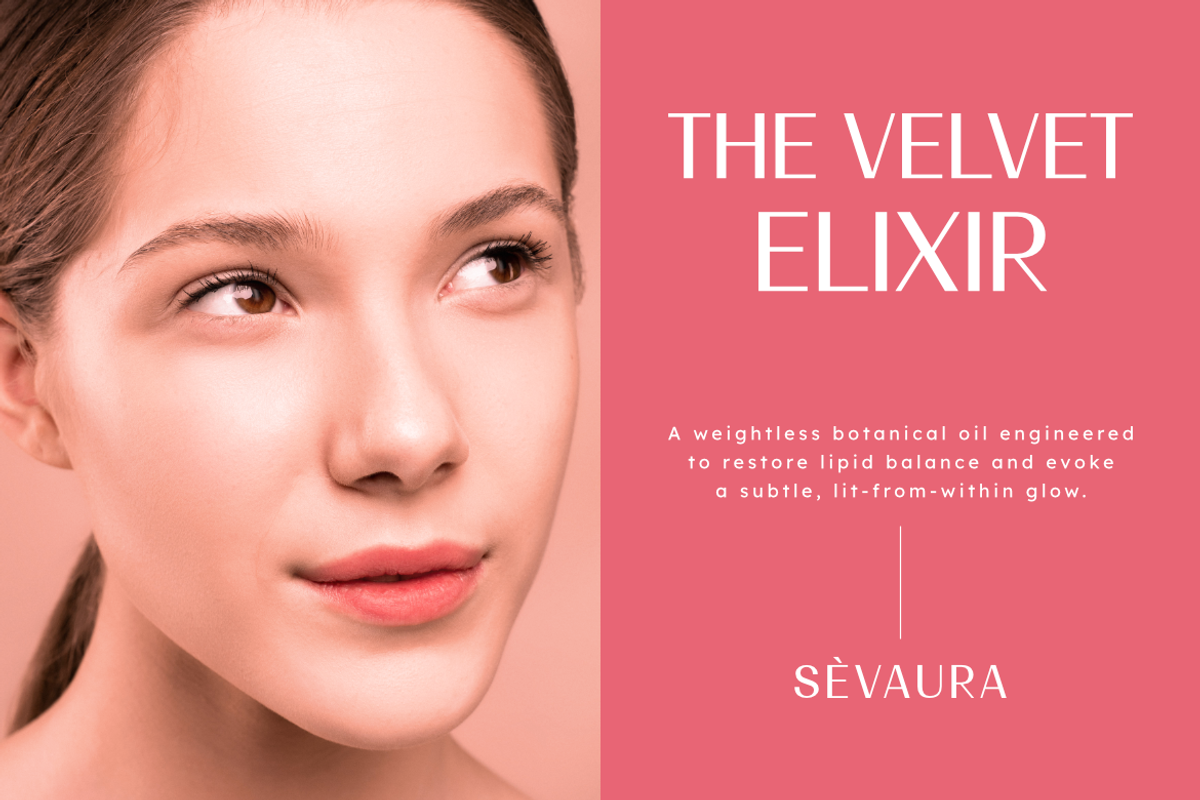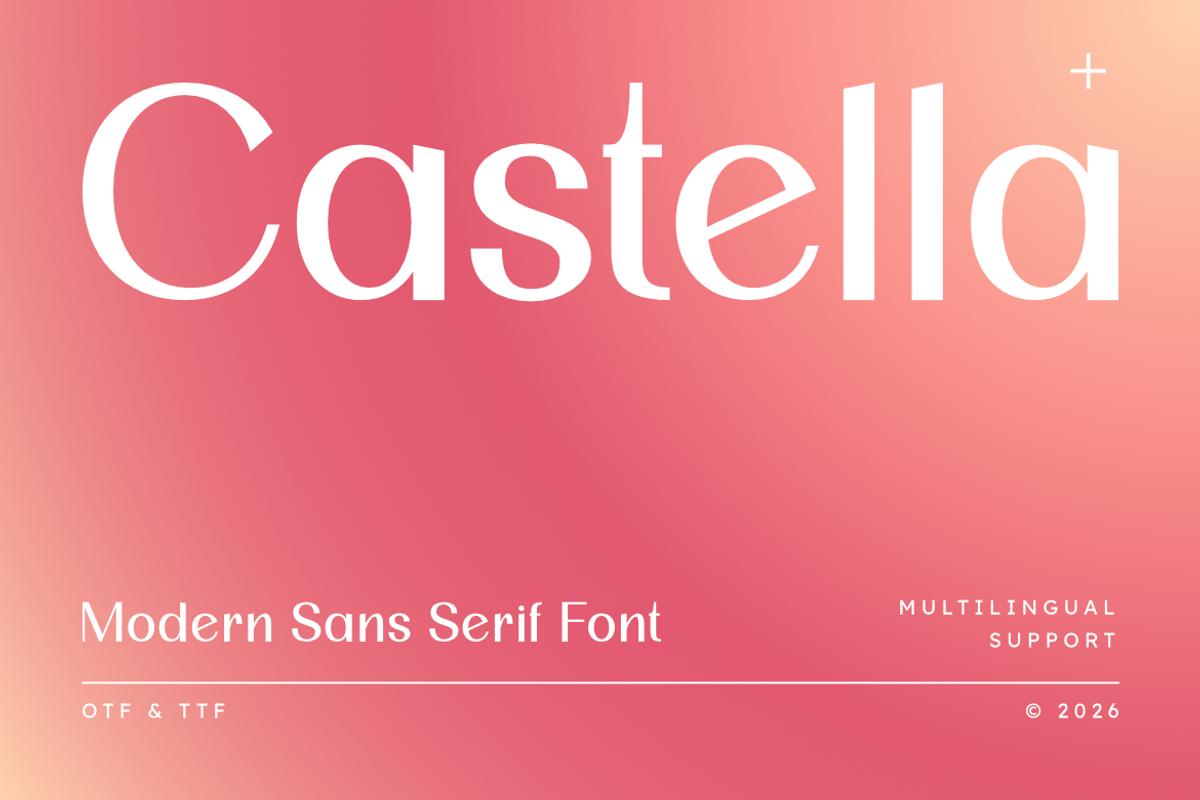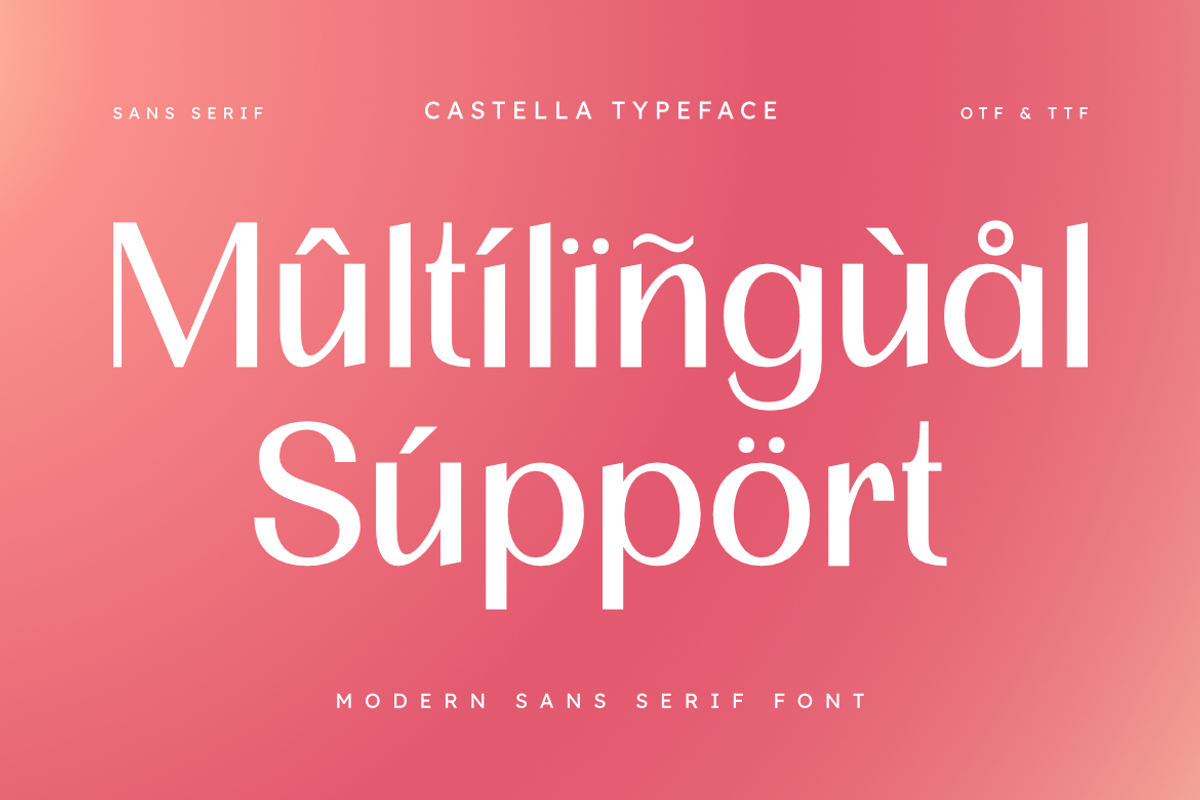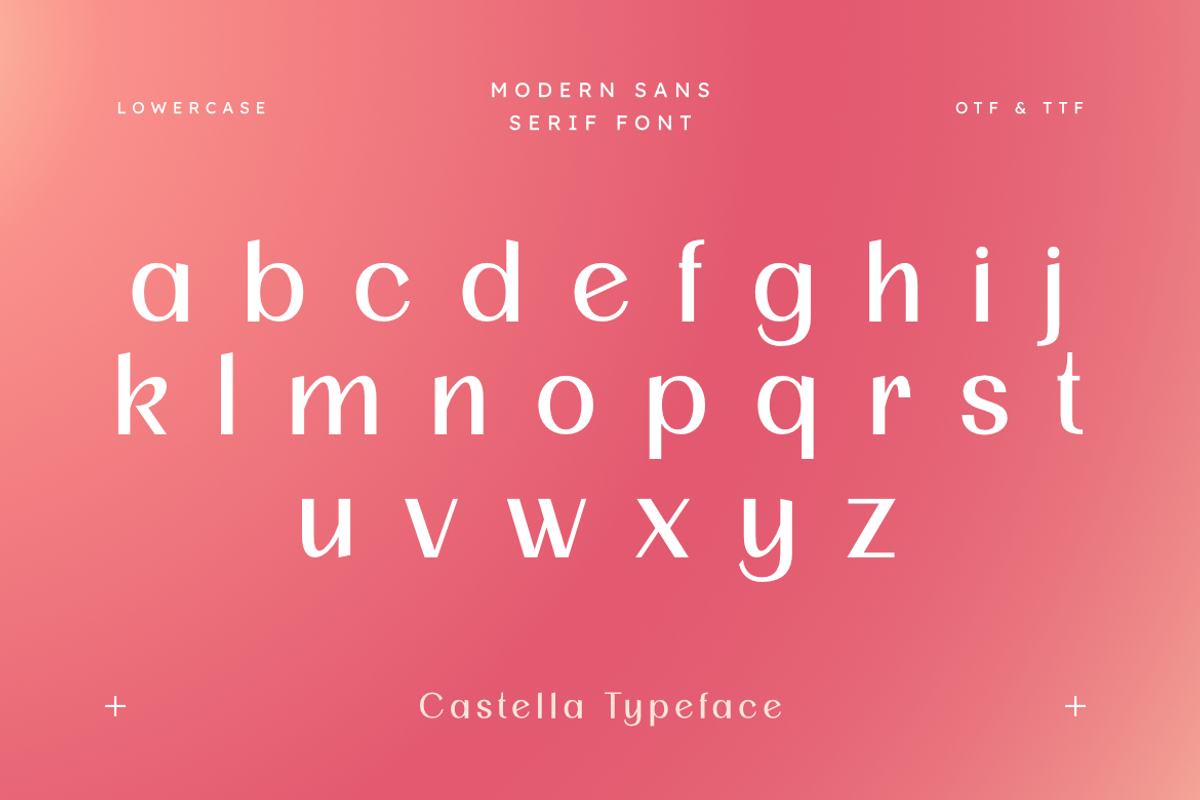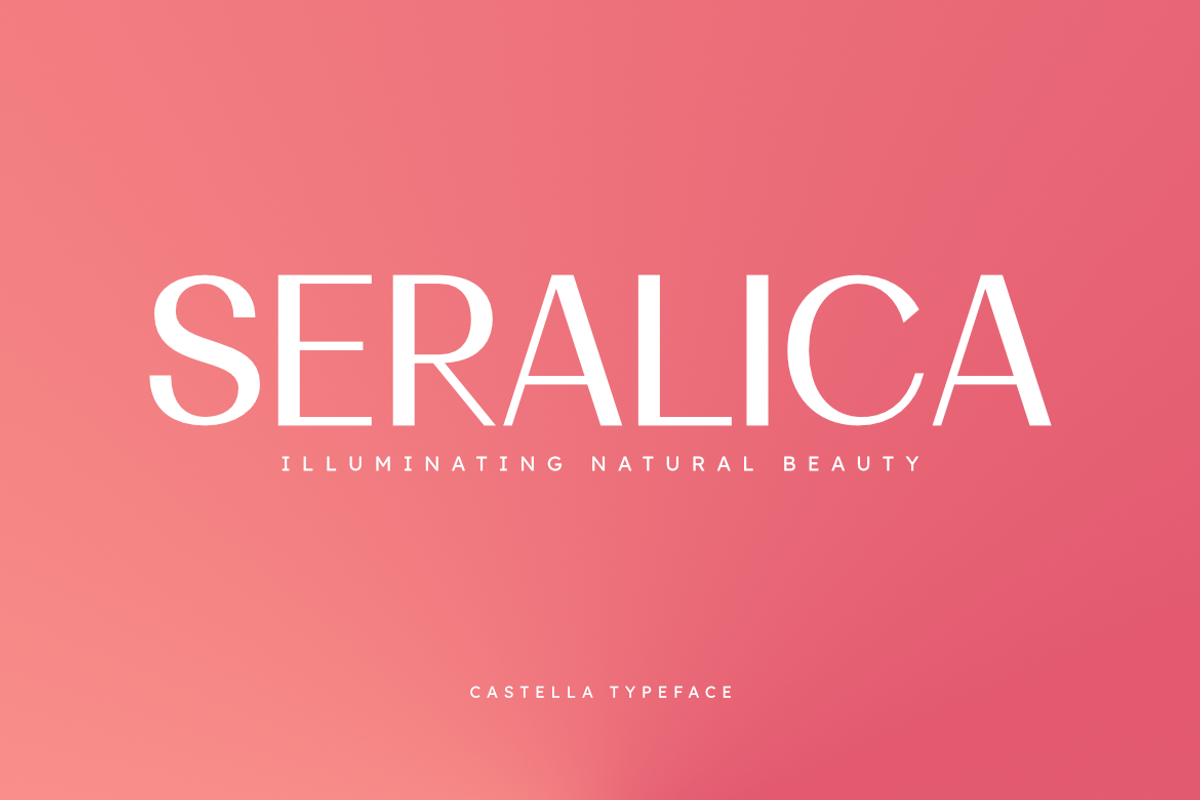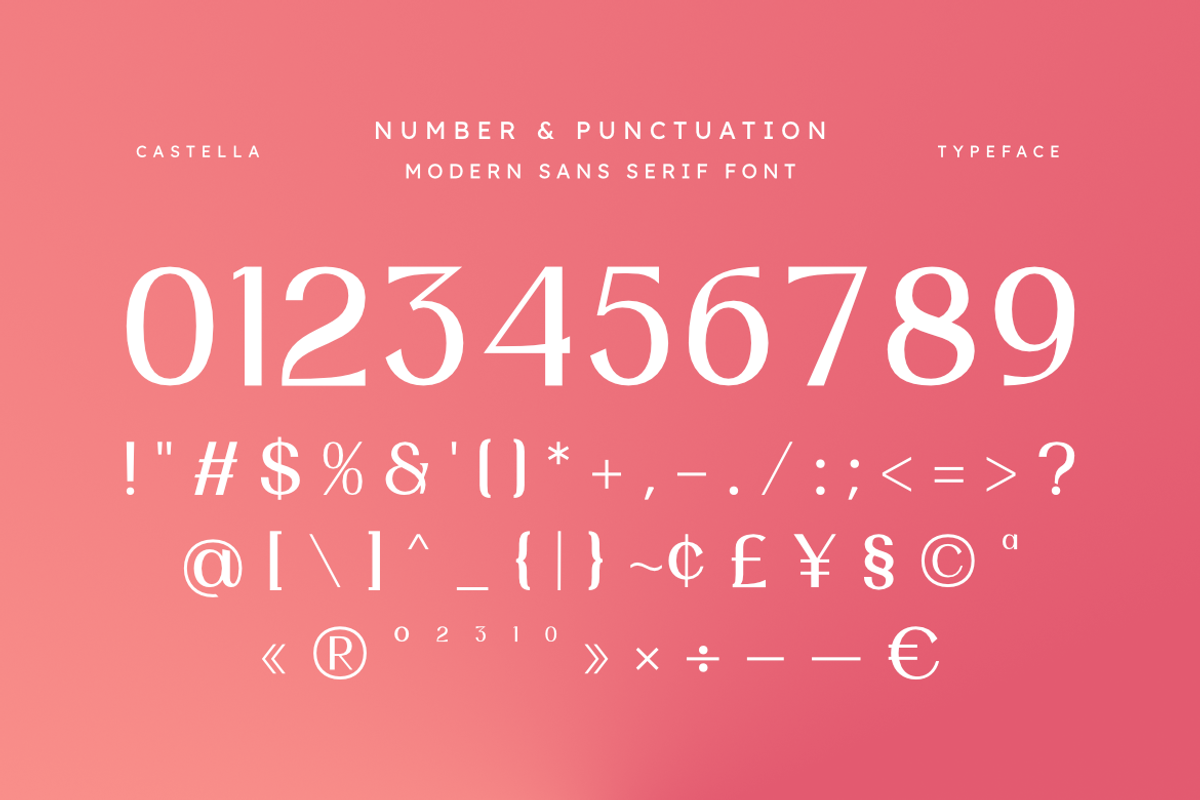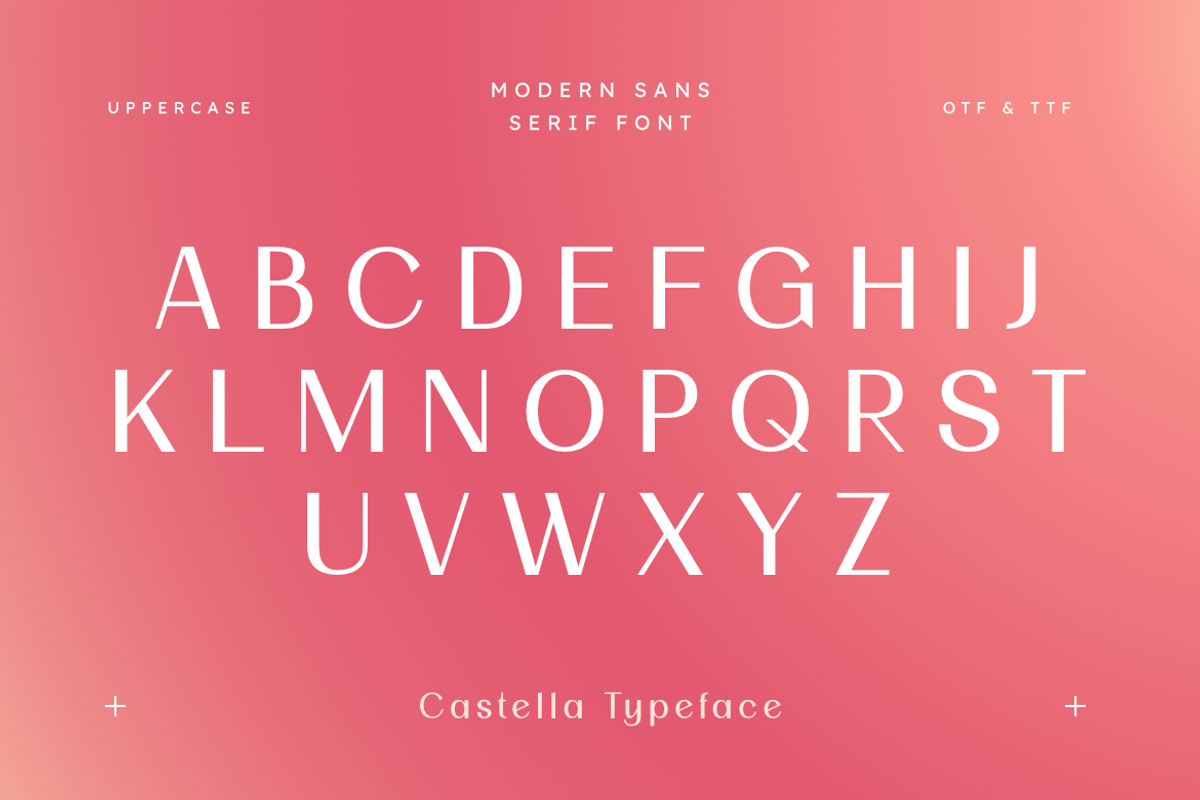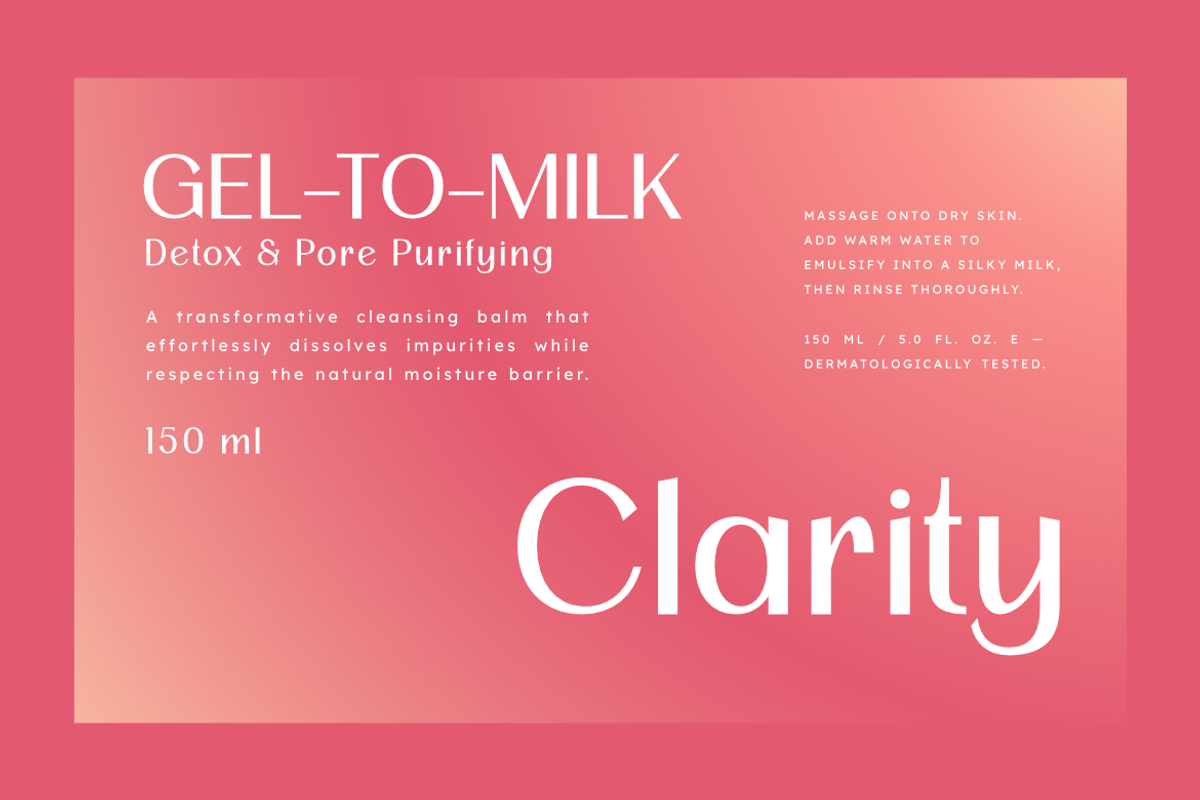
Castella | Modern Sans Serif Font
Elevate your branding and design projects with Castella, a sophisticated modern sans serif typeface meticulously crafted for precision and elegance. Blending the clean lines of contemporary minimalism with premium aesthetic balance, Castella provides a high-end edge to your visual identity.
Whether you are building a brand for a luxury fashion label, designing immersive botanical and editorial layouts, or creating polished stationery and promotional materials, this font delivers a sharp, professional finish. Its modern geometric curves and sleek silhouettes ensure that your message commands attention in both digital and print environments.
Perfect for high-impact headlines and professional branding.